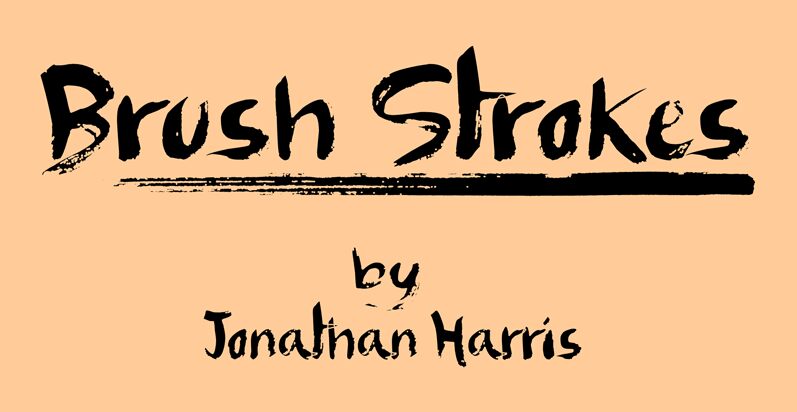
Brush Strokes from TattooWoo.com is a free brush-lettered font with broad, uneven strokes and the raw drag marks of a loaded brush. Its pointed ends and ragged edges keep the lettering forceful and restless.
That rough, ink-heavy finish suits both music posters and tattoo studio branding, where an immediate hand-painted look matters, and it can also sharpen streetwear packaging. On album covers or event merchandise, the letters can become part of the artwork itself, reading like painted marks or a custom shop sign rather than neutral type.